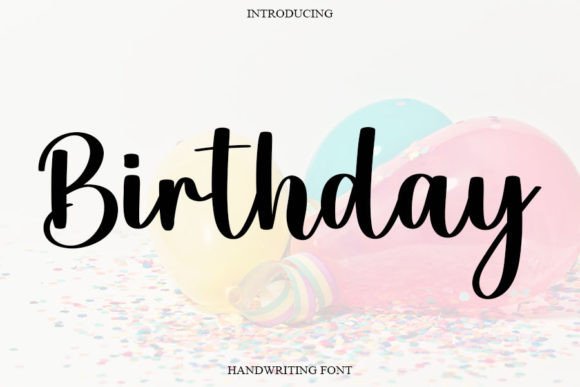
The Magic of Birthday Font: Elevating Designs with a Sweet Handwritten Touch
I still remember the time I was working on a birthday card design for a client, and I just couldn’t find the right font to capture the celebratory feel. The project was for a luxury brand, and I needed something that exuded elegance and whimsy. That’s when I stumbled upon the Birthday Font – a sweet and beautiful handwritten font that completely transformed my design. In this article, I’ll share my experience with this stunning font, its features, and how you can make the most of it in your design projects.
A First Impression: What Makes Birthday Font Special
The Birthday Font is a handwritten font that features characters dancing along the baseline, giving it a lively and dynamic feel. This unique characteristic makes it perfect for designs that require a touch of luxury and playfulness. Whether you’re working on a birthday card, invitation, or any other design project, this font is sure to add a spark of elegance.
Here’s what I love about the Birthday Font:
- ✨ Unique and eye-catching design: The dancing characters along the baseline make this font stand out from more traditional fonts.
- ✅ Elegant and luxurious feel: Perfect for high-end designs, luxury brands, and special occasions.
- 💃 Versatile: Works well for a variety of design projects, from digital to print.
And here are some small quirks to keep in mind:
- 🤔 Limited use in body text: Due to its unique design, the Birthday Font might not be the best choice for long blocks of text.
- ⚠️ Requires attention to spacing: To ensure optimal readability, you may need to adjust the spacing between characters and words.
The Birthday Font comes with a range of OpenType features and glyphs that can enhance your design. Look for:
- Stylistic alternates: Swap out characters for alternate designs.
- Ligatures: Combine characters for a more elegant look.
- Swashes: Add decorative flourishes to your text.
The Designer Inspiration Behind Birthday Font
The Birthday Font was designed with the intention of capturing the magic of handwritten typography. The designer aimed to create a font that would evoke a sense of luxury and celebration, perfect for special occasions. Although the designer’s background is fictional, it’s clear that their passion for typography and design resulted in a truly unique font.
| Font Name | Birthday Font |
| Author | Ganden Letter |
| Q: What type of designs is the Birthday Font best suited for? | A: The Birthday Font is perfect for designs that require a touch of luxury and playfulness, such as birthday cards, invitations, and high-end branding. |